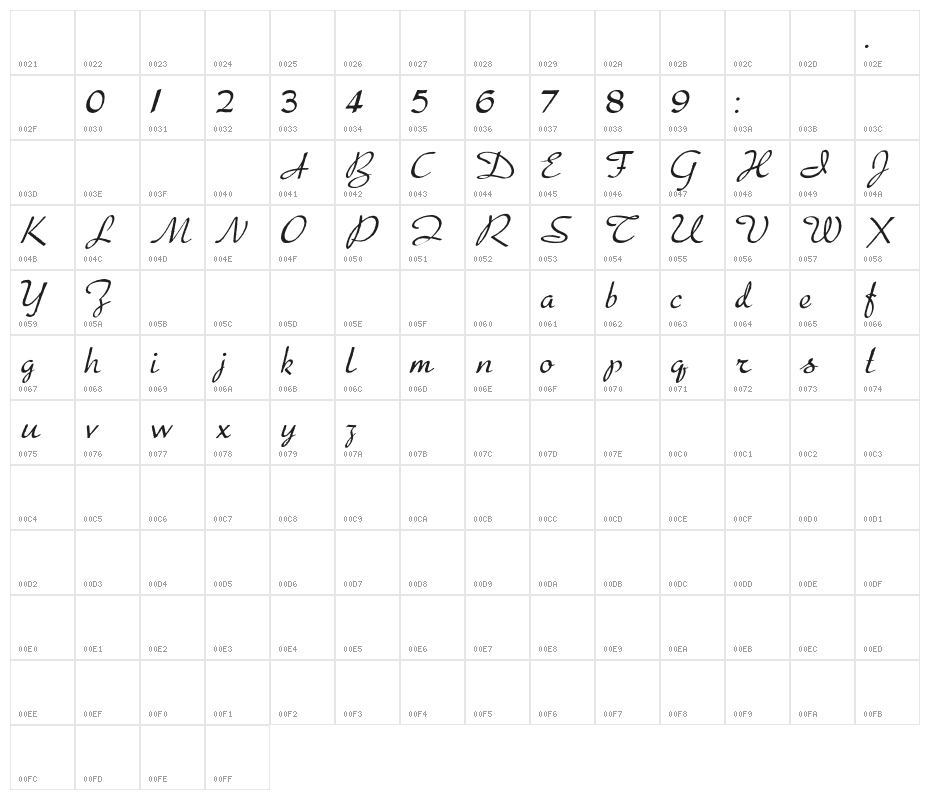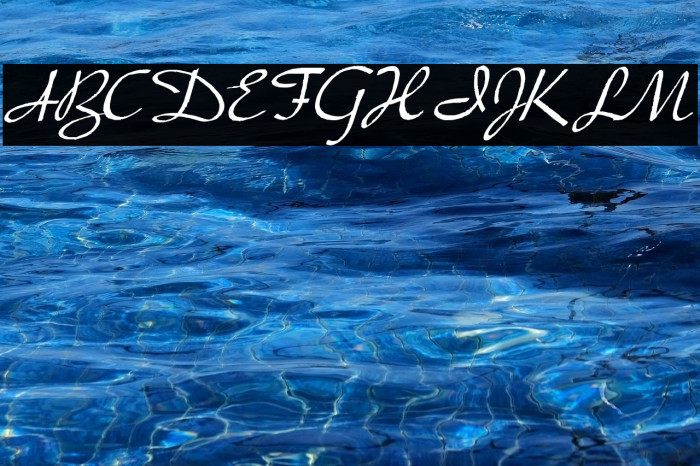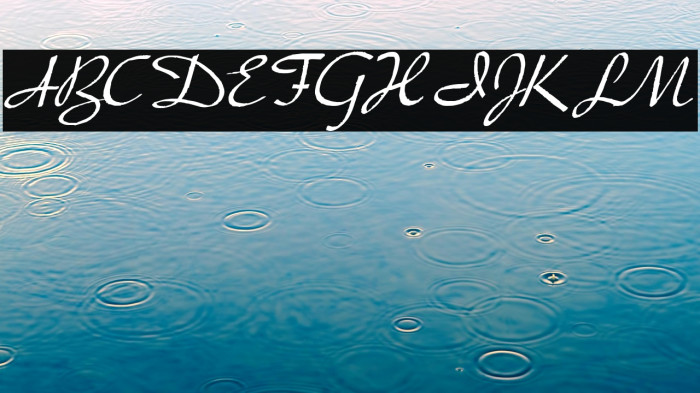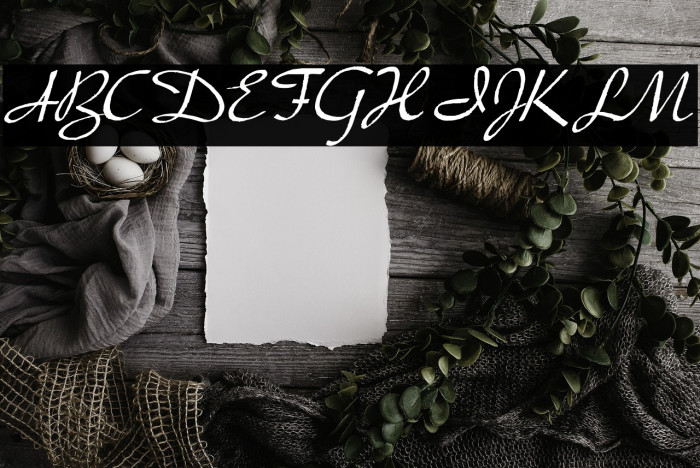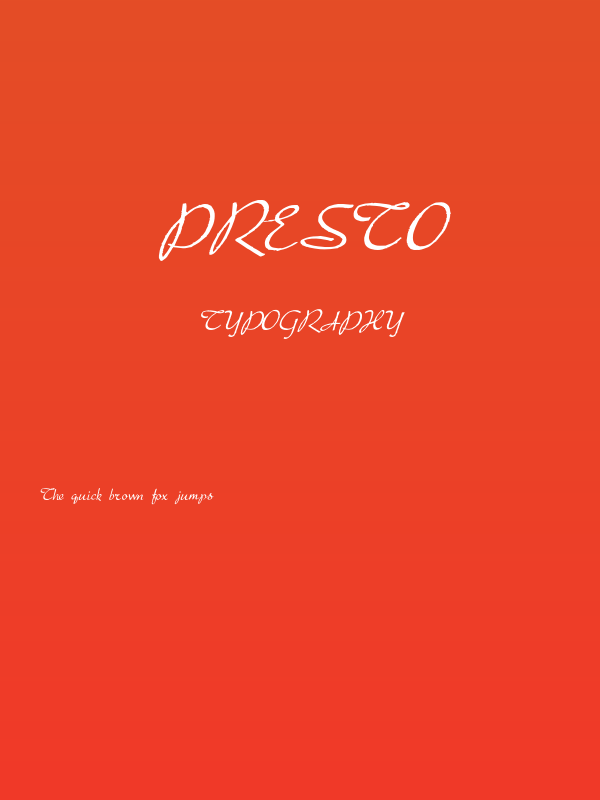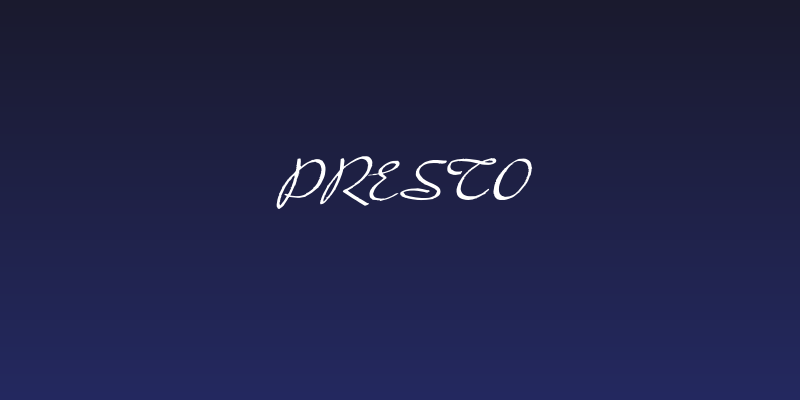
Presto Font
Presto Description
This font exudes a classic and elegant script style, characterized by its flowing, cursive letterforms that mimic the fluidity of handwriting. The uppercase letters are ornate, with sweeping curves and loops, while the lowercase letters maintain a consistent slant, enhancing the overall graceful appearance. The numerals are bold and slightly rounded, providing a harmonious balance with the letters. This font's design is both sophisticated and approachable, making it suitable for a variety of formal and informal applications.